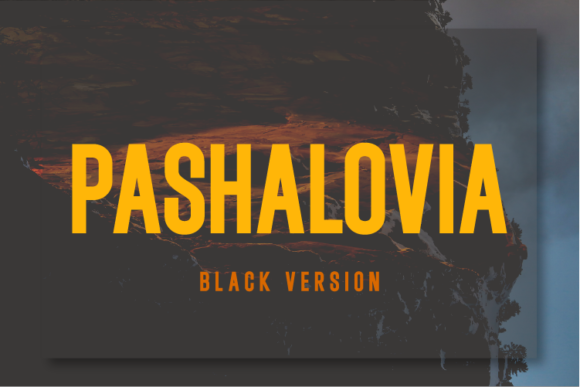
Welcome to the world of Pashalovia Black, a stunning sans serif font that will captivate your audience with its bold presence and timeless elegance. Crafted by the skilled hands of Huntype, this typeface is a testament to the beauty of simplicity.
With its perfectly balanced strokes and closed apertures, Pashalovia exudes a sense of sophistication and professionalism. Each character is carefully designed with geometric precision, creating a harmonious visual flow that is easy on the eyes. Whether you're designing a captivating website, crafting a stylish logo, or creating eye-catching social media graphics, Pashalovia Black will elevate your message with its understated yet powerful charm.
But don't be fooled by its minimalist appearance. Pashalovia Black is a versatile chameleon that adapts seamlessly to any project, adding a touch of class and individuality. It's the perfect choice for headlines and subheads that demand attention, body copy that flows effortlessly, and branding that leaves a lasting impression.
* **Bold and Beautiful:** Its thick, confident strokes make a statement without overpowering your message, ensuring that your words will be noticed and remembered.
* **Timeless Elegance:** Pashalovia Black transcends fleeting trends, offering a classic aesthetic that will stand the test of time.
* **Effortless Legibility:** With its closed apertures and generous spacing, Pashalovia Black ensures that your text is crystal clear, even in small sizes.
* **Versatile Charmer:** From elegant invitations to modern websites, Pashalovia Black effortlessly adapts to any design style, adding a touch of sophistication and flair.